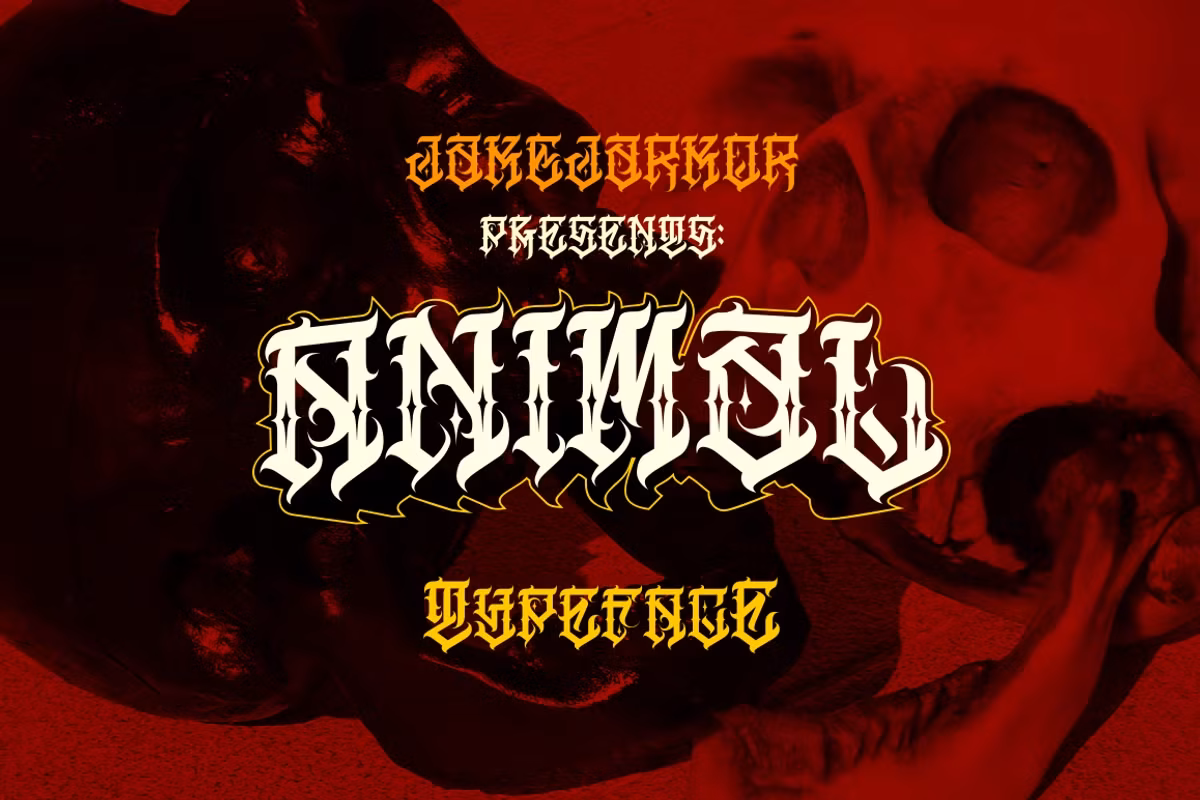
ANIMAL Font Free Download is a wild and expressive typeface that captures the bold energy and untamed spirit of nature. Please note, you are required to purchase this font for commercial use. It is available for free download for testing and personal projects only.
With its strong lines, unique forms, and raw character, ANIMAL Font is perfect for adventure branding, outdoor gear, children’s projects, wildlife campaigns, and edgy editorial designs. It brings a primal, eye-catching look to your typography while maintaining readability and style.
By choosing ANIMAL Font Free Download, you’re gaining access to a professionally crafted display font that installs easily and works smoothly across all major design software. Whether you're going for fierce, fun, or natural vibes, ANIMAL adds a bold personality and visual impact that makes your designs stand out.